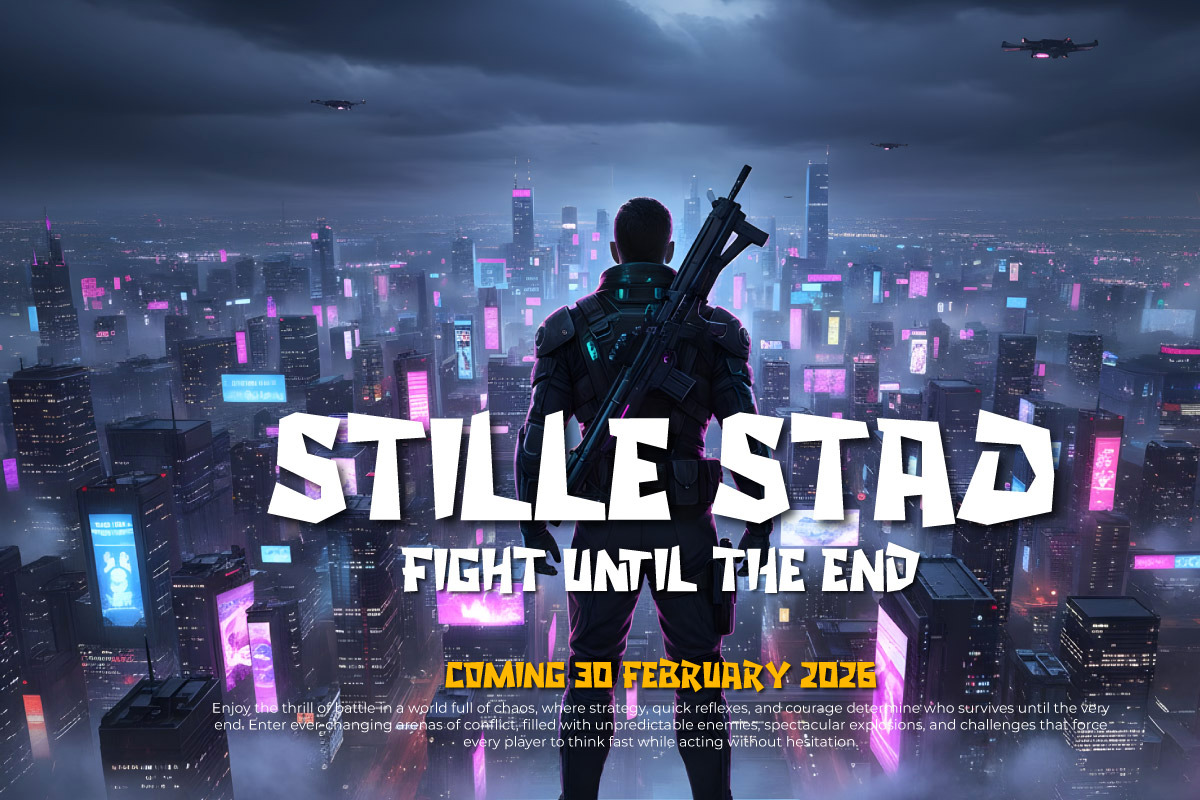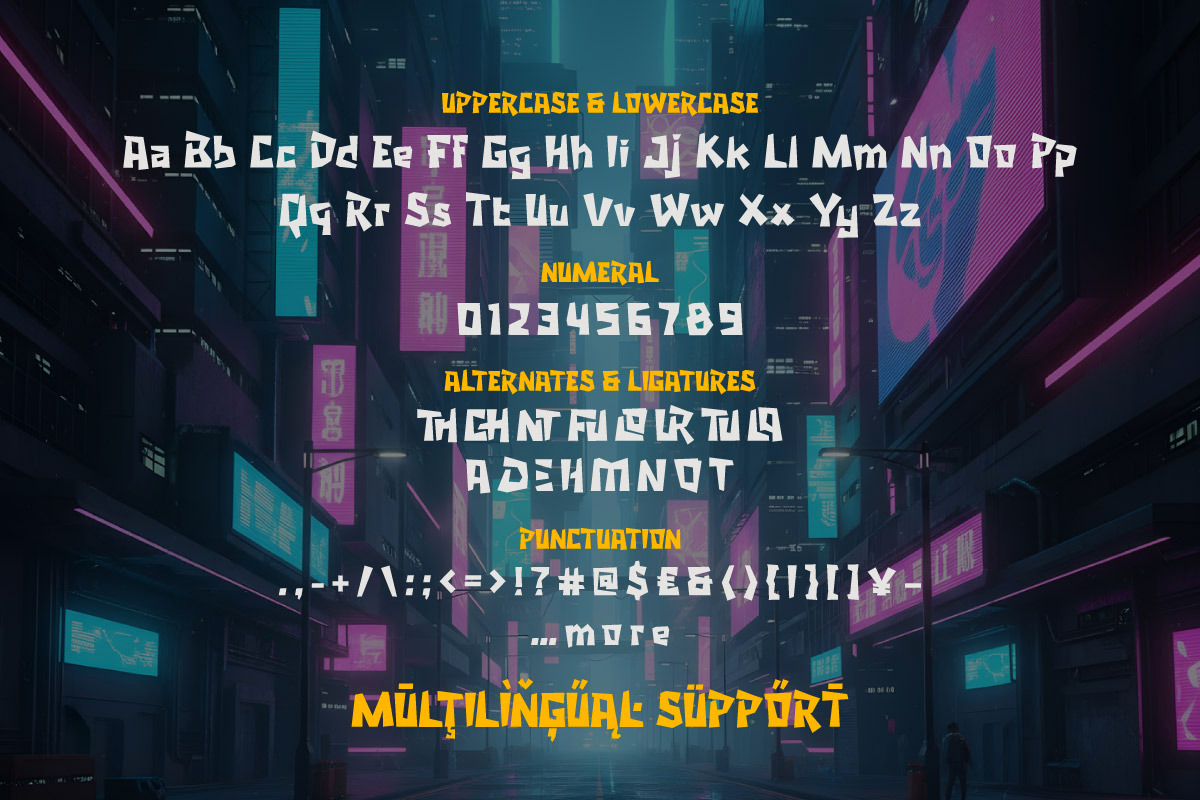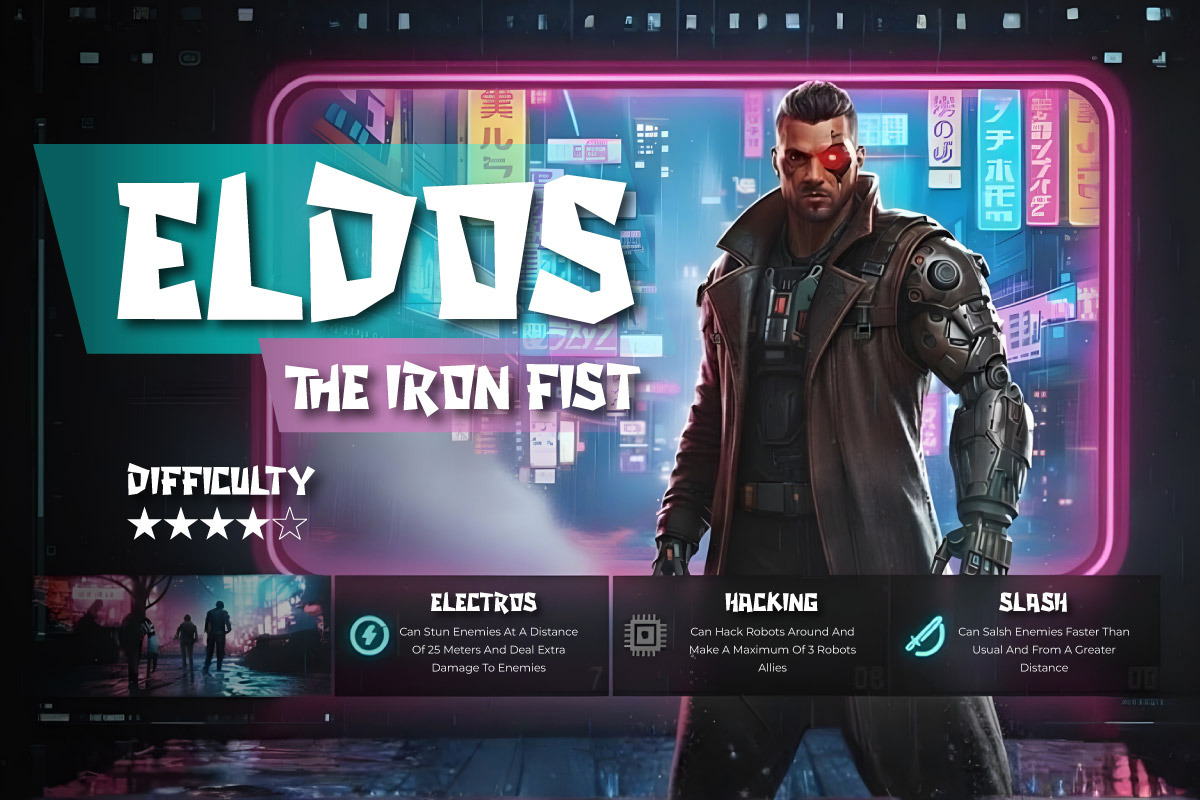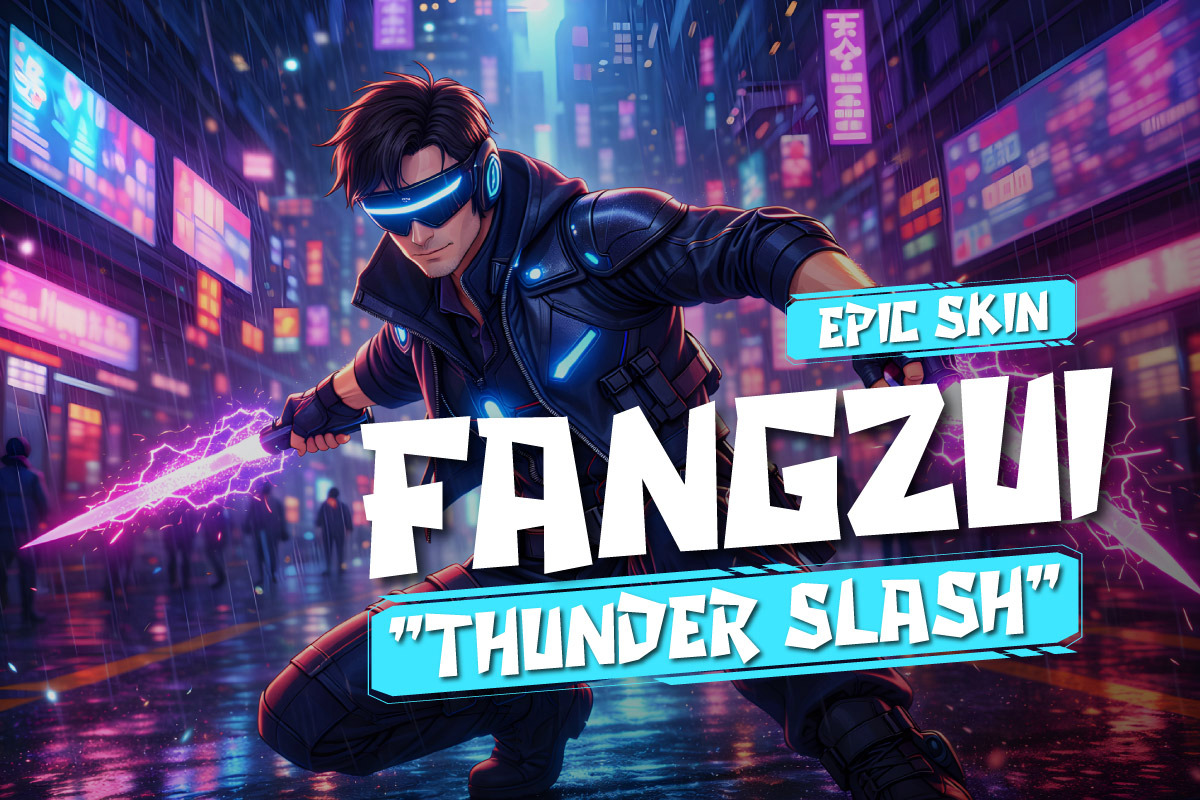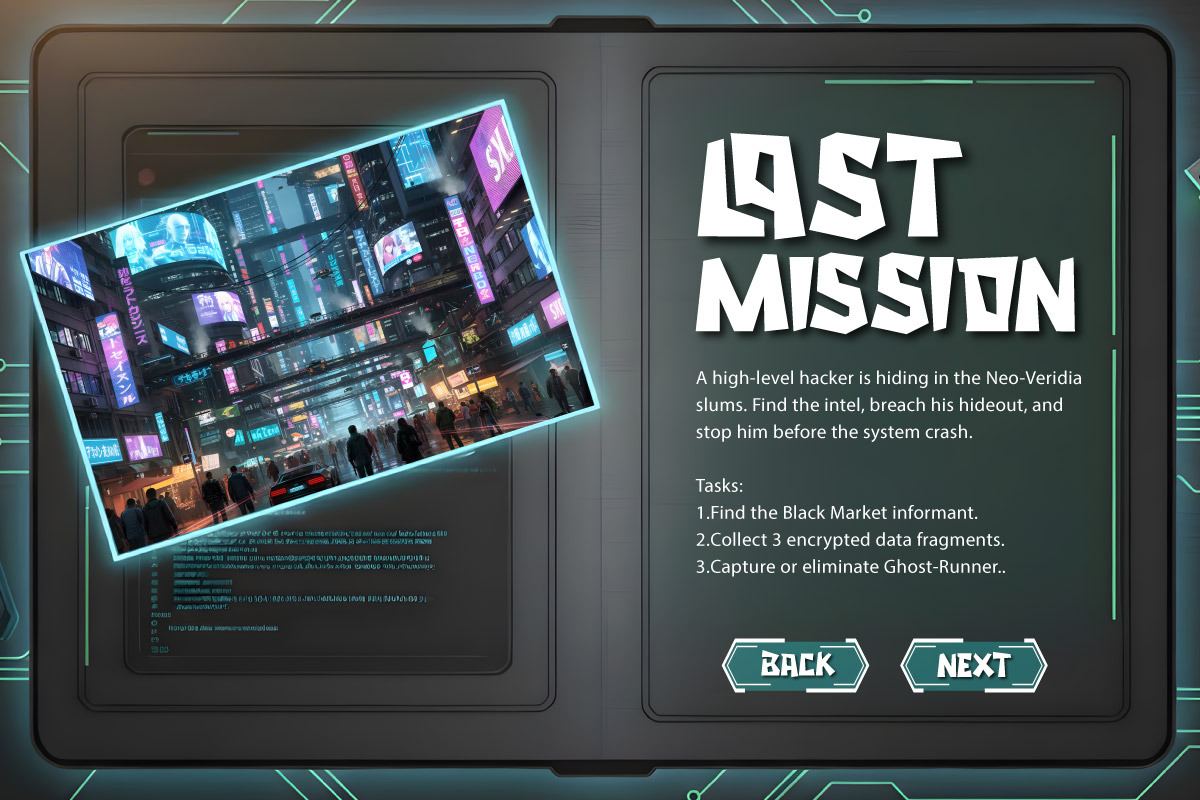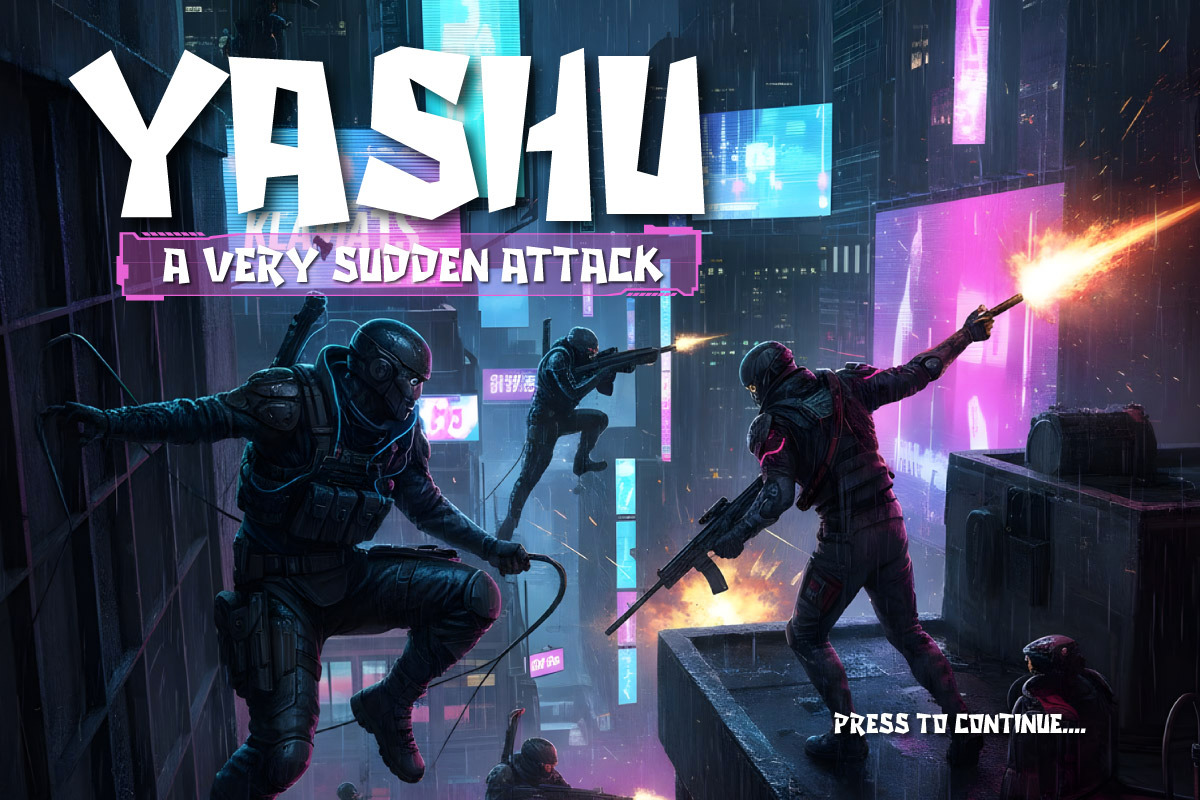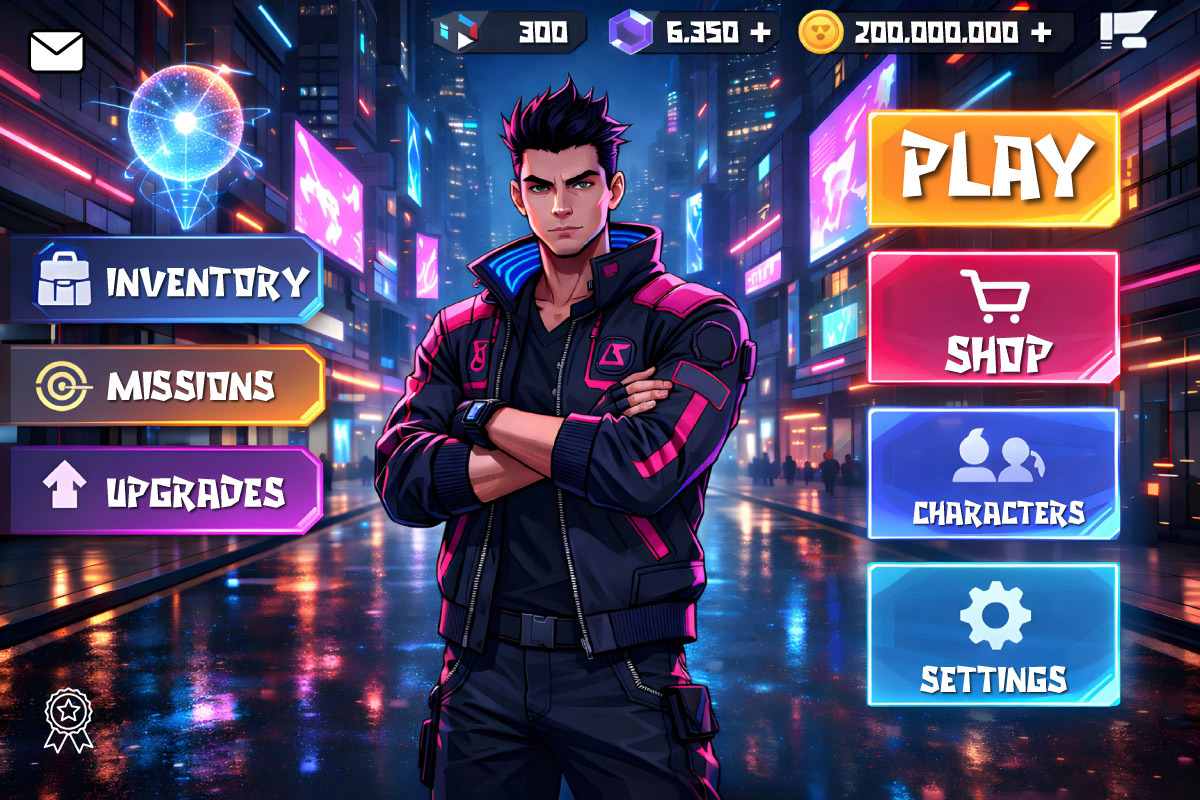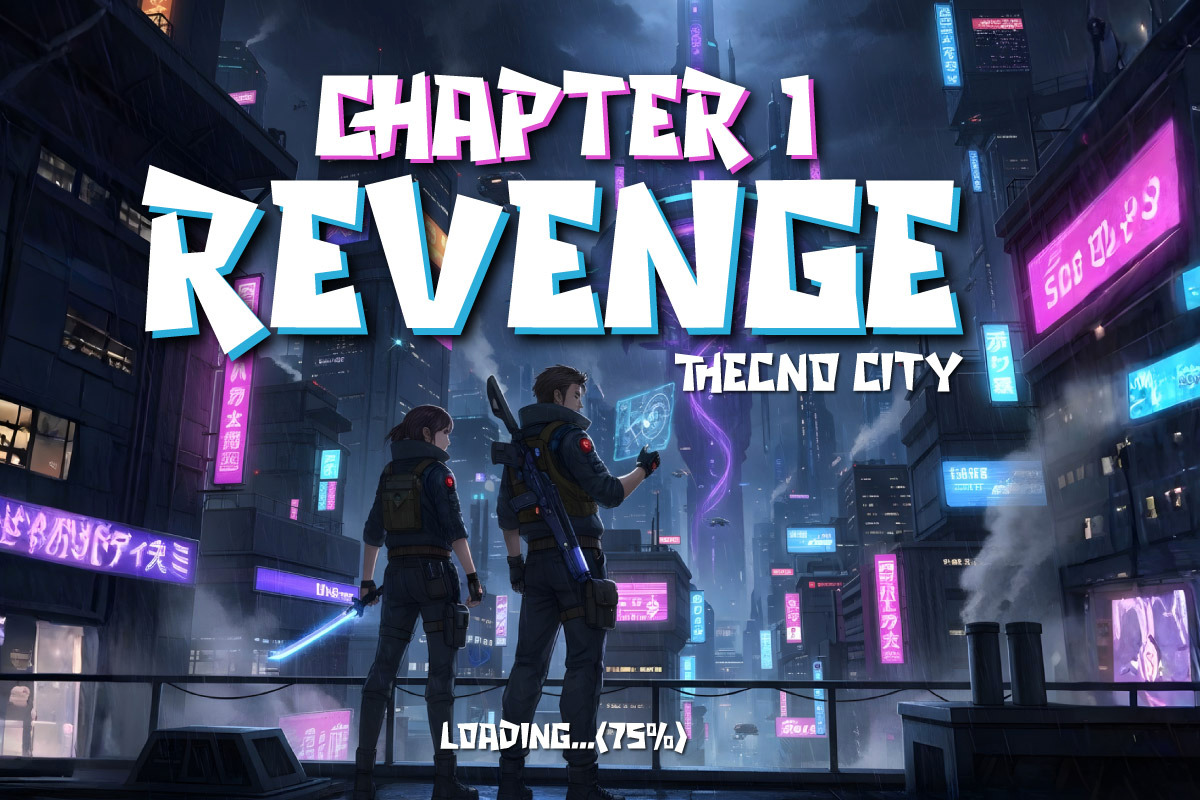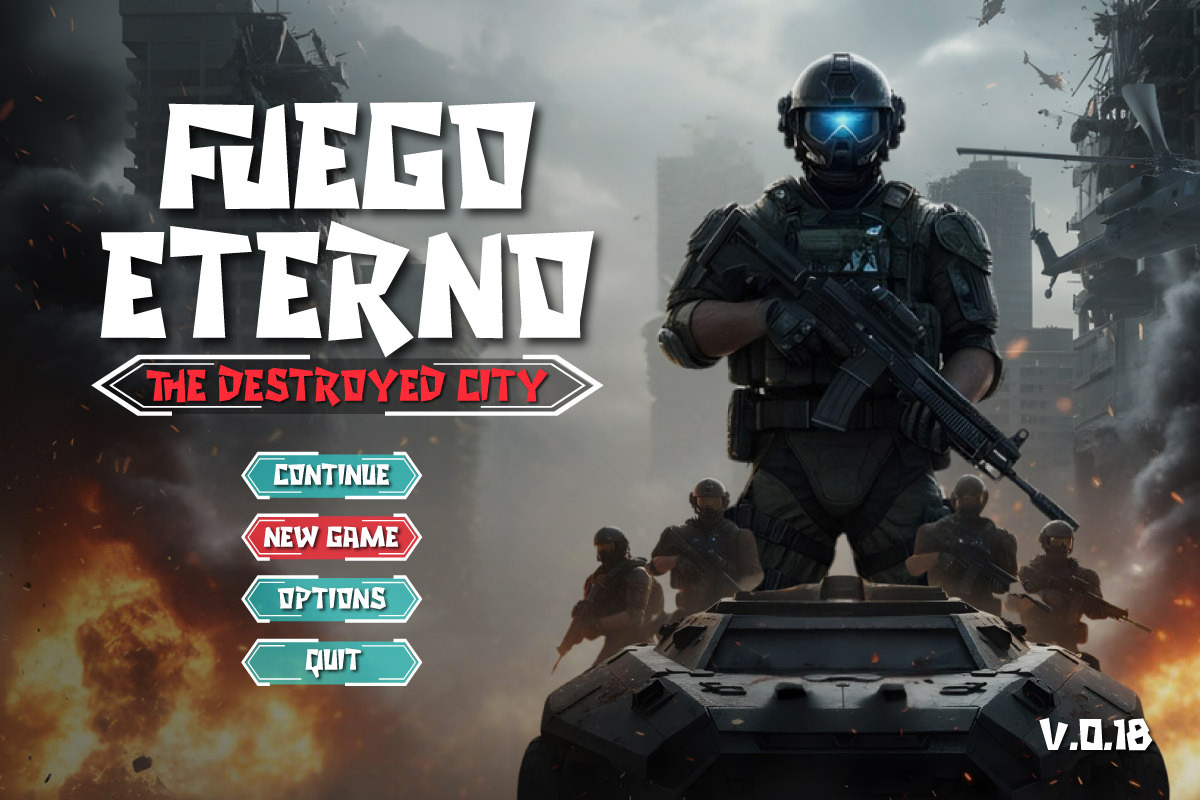
Future Thor-Game Technology Display
Future Thor is a Futuristic Display typeface designed for tech and sci-fi themed visual needs. The font features bold and dynamic letterforms to provide a modern feel to design projects. Its characteristics are functionally crafted to support visual identities related to the sci-fi world, the tech industry, and futuristic aesthetics.
Its design structure prioritizes visual clarity so the text remains readable across various digital and print media sizes. With precision detail in every character, this font is a practical choice for user interfaces (Game UI), movie posters, and tech branding materials. This helps designers organize a clear and professional information hierarchy within a layout.
As a Futuristic Display Font, Future Thor is equipped with uppercase, lowercase, alternates, and multilingual support. This font is suitable for cyberpunk logos, modern digital content, and brand identities requiring a consistent technical aesthetic. Future Thor offers a solid typography solution for various needs in the creative and technology industries.